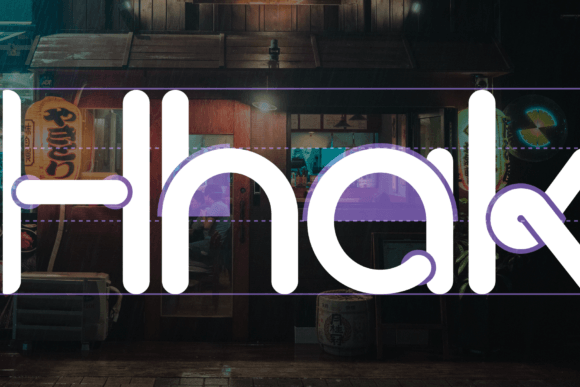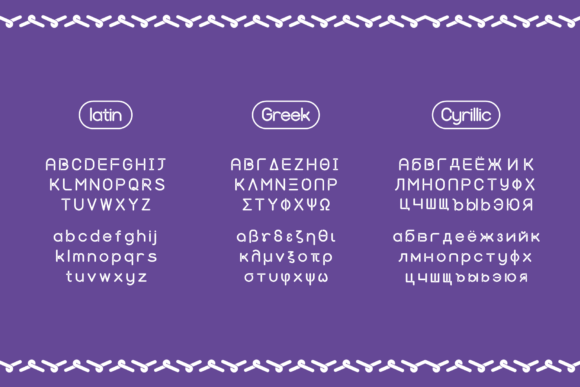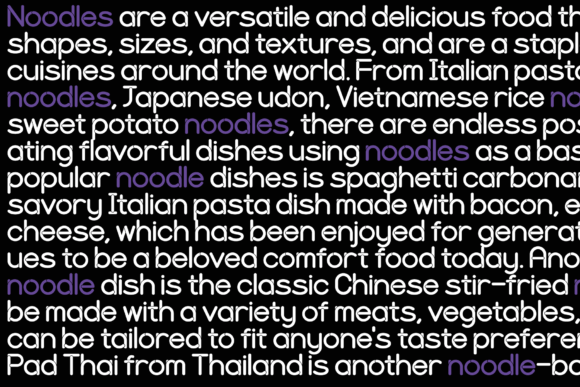
Introduction to Hu Noodles Font
You know that feeling when you stumble upon a design resource that instantly sparks a creative idea? For many designers, this moment is what drives their passion for their craft. I still remember the time I discovered the Hu Noodles Font – a modern and sleek typeface that has since become a staple in my design toolkit.
What I love about Hu Noodles Font is its versatility and high quality design. Whether you’re working on an editorial project or creating a digital design, this font is an excellent choice. Its simple yet refined design allows it to seamlessly blend in with any creative project, from web design to social media graphics.
Key Features of Hu Noodles Font
- High-quality, unique font design perfect for creative projects
- Transparent background, allowing for seamless integration with any design
- Supports various languages, making it a versatile design tool
- Designed to be highly scalable, ensuring crisp and clear rendering at any resolution
- Perfect for use in digital design projects, including web design, graphic design, and more
Honest Review: Hu Noodles Font
I recently stumbled upon the Hu Noodles Font, and I must say, it’s a design resource that caught my attention. This font is perfect for creating a unique and playful vibe in your creative project.
- ✨ High-quality design that’s perfect for digital and print use
- ✨ A transparent background, making it easy to customize and use in various design contexts
- ⚠️ Limited font style options, which might limit its versatility
- ⚠️ Some users might find the font a bit too quirky or unconventional for their taste
Overall, I’m impressed with the Hu Noodles Font’s unique design and high-quality aesthetic. While it may not be the best fit for every design project, it’s definitely worth considering for those looking to add a playful touch to their work.
Hu Noodles Font is a unique and stylish design resource that can elevate your creative project to the next level. With its high-quality and transparent background, it’s perfect for adding a touch of sophistication to your designs.
Tips for Getting the Most Out of Hu Noodles Font
For the best results, use Hu Noodles Font in conjunction with other high-quality design elements, such as graphics and images. Experiment with different font sizes and styles to create a unique and eye-catching design.
Hu Noodles Font is perfect for a variety of creative projects, including logos, branding materials, and marketing materials. Its high-quality and transparent background make it ideal for use on a transparent background or with a colored background.